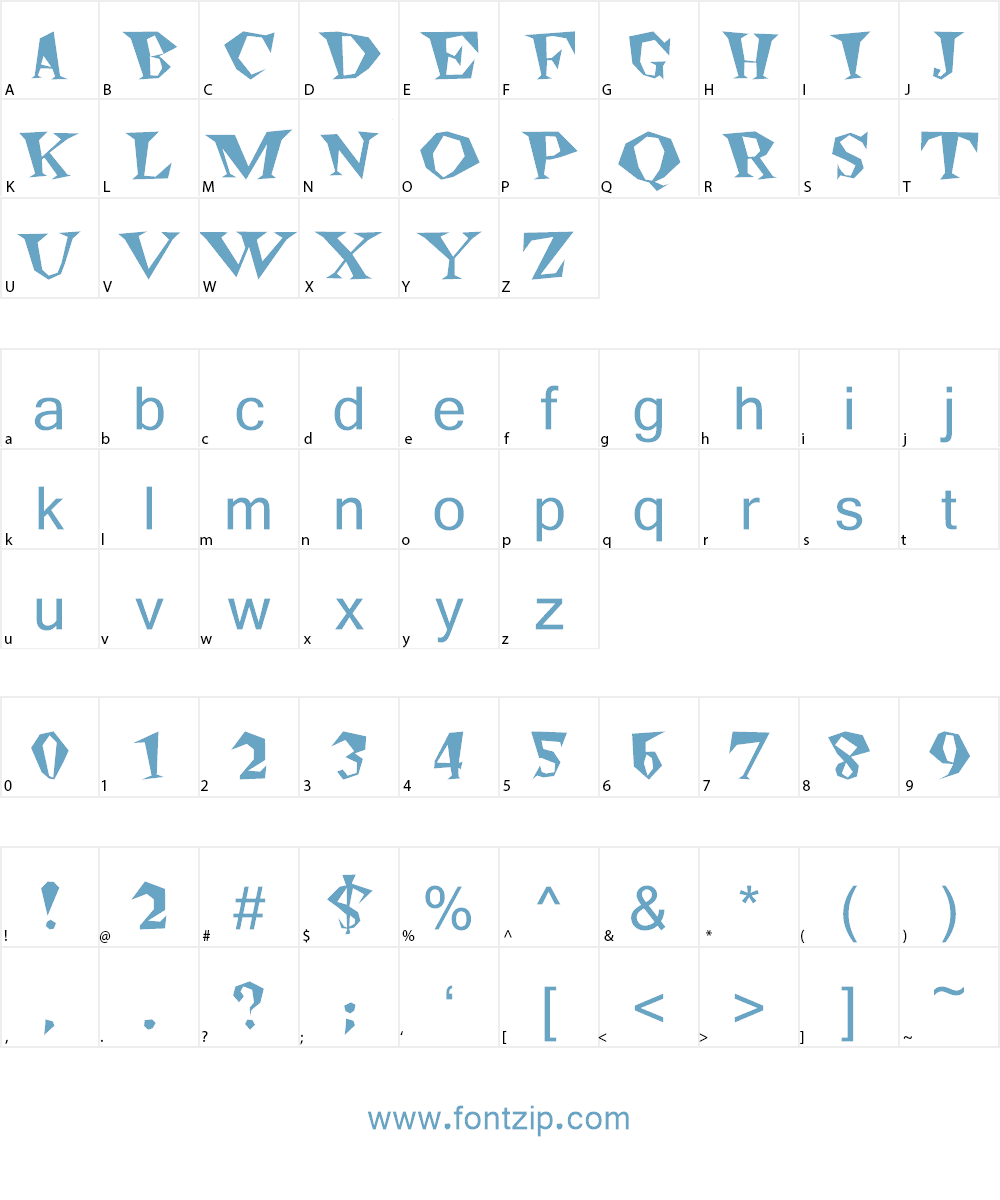
This upload is a version of Freakout with the capital "R" fixed so that it doesn't fill in. If you already have a copy you can download this one and it is free (you America Online people have been REAL NICE AND PAID ALL YOUR SHAREWARE FEES!)
Freakout reminds me of the Old "Hullabaloo!" show, you know go-go boots and a whole lot of shaking going on!...